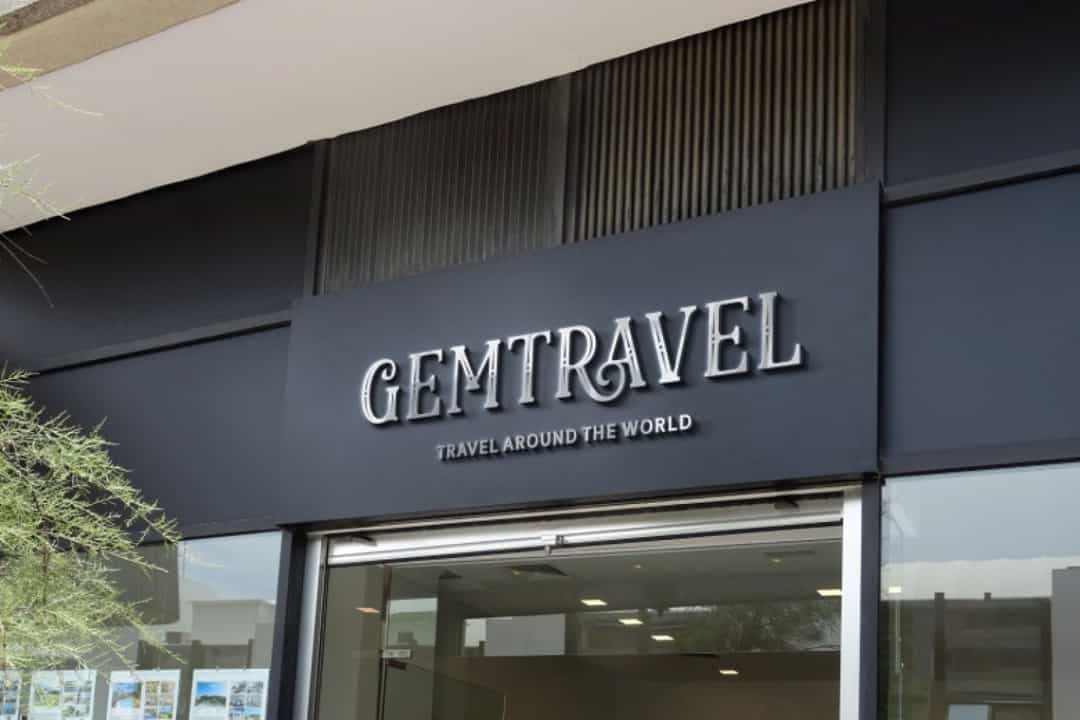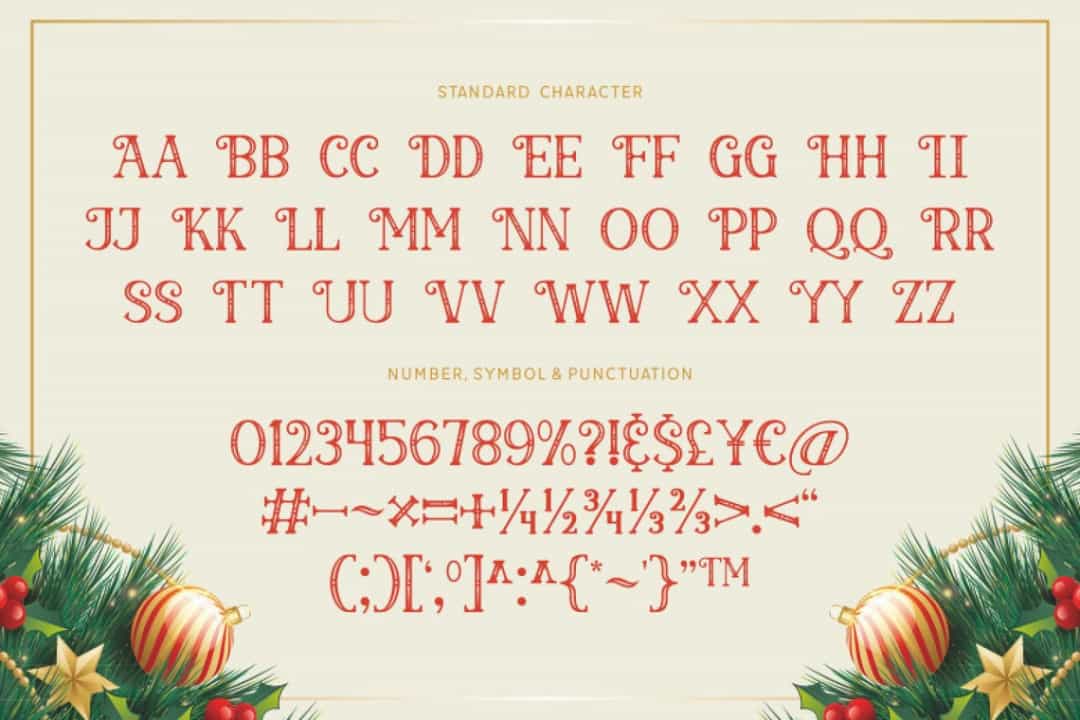
Glorious Christmas is one of the best Christmas serif fonts, boasting stunning serifs that pair up beautifully with its graceful characters for a stunningly elegant and beautiful appearance.